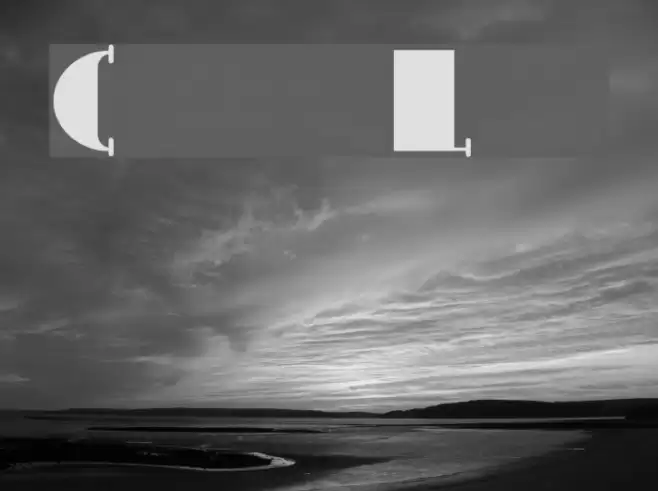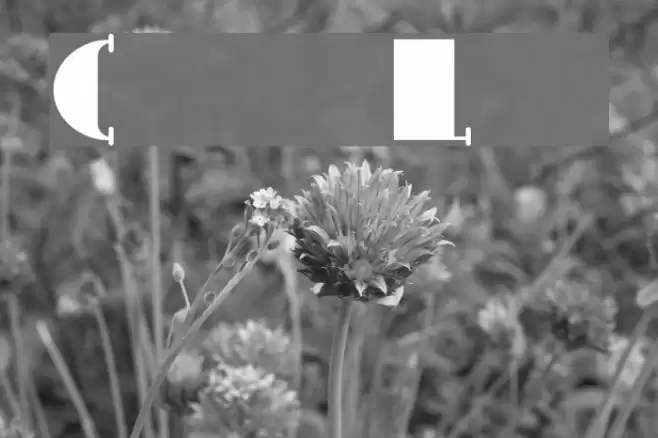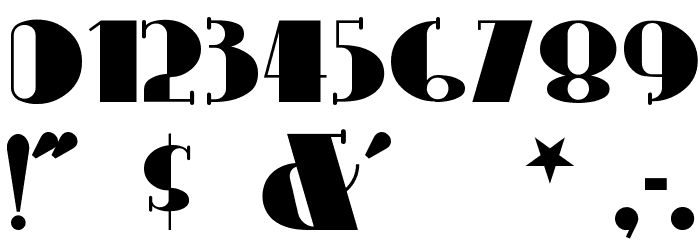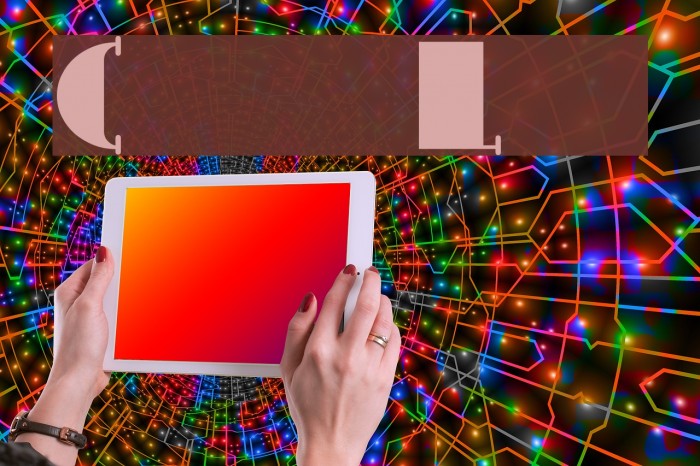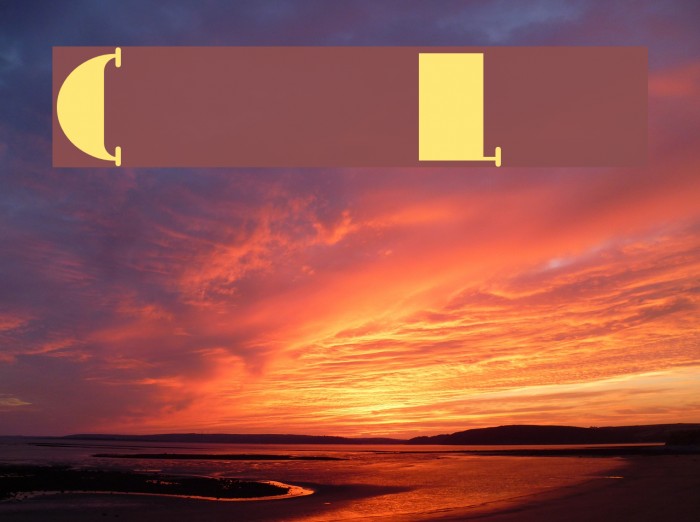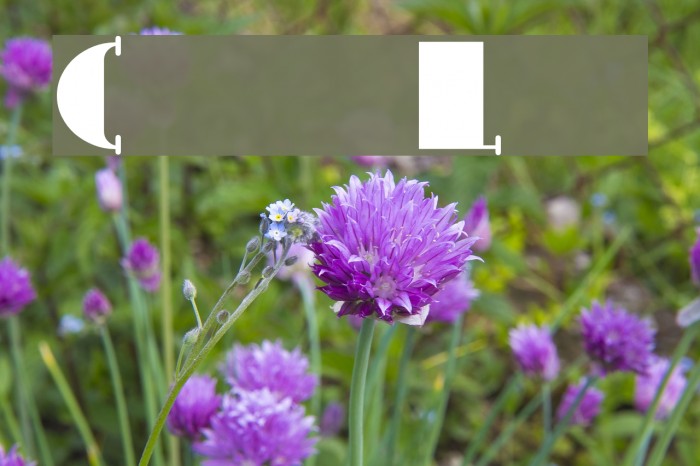
CongaLine Font
CongaLine Description
This font is a bold and striking display typeface characterized by its unique geometric shapes and high contrast between thick and thin strokes. The uppercase letters are particularly distinctive, with exaggerated serifs and a playful, almost whimsical style. The numbers and special characters maintain this bold aesthetic, making them stand out prominently. The font's design is modern and artistic, suitable for projects that require a strong visual impact. Its decorative nature makes it ideal for headlines, posters, and branding materials where a statement is needed.
A bold, geometric display font with high contrast and decorative serifs from Decorative fonts.
- Proposed Projects: Ideal for use in posters, branding, headlines, and any project requiring a bold visual impact.